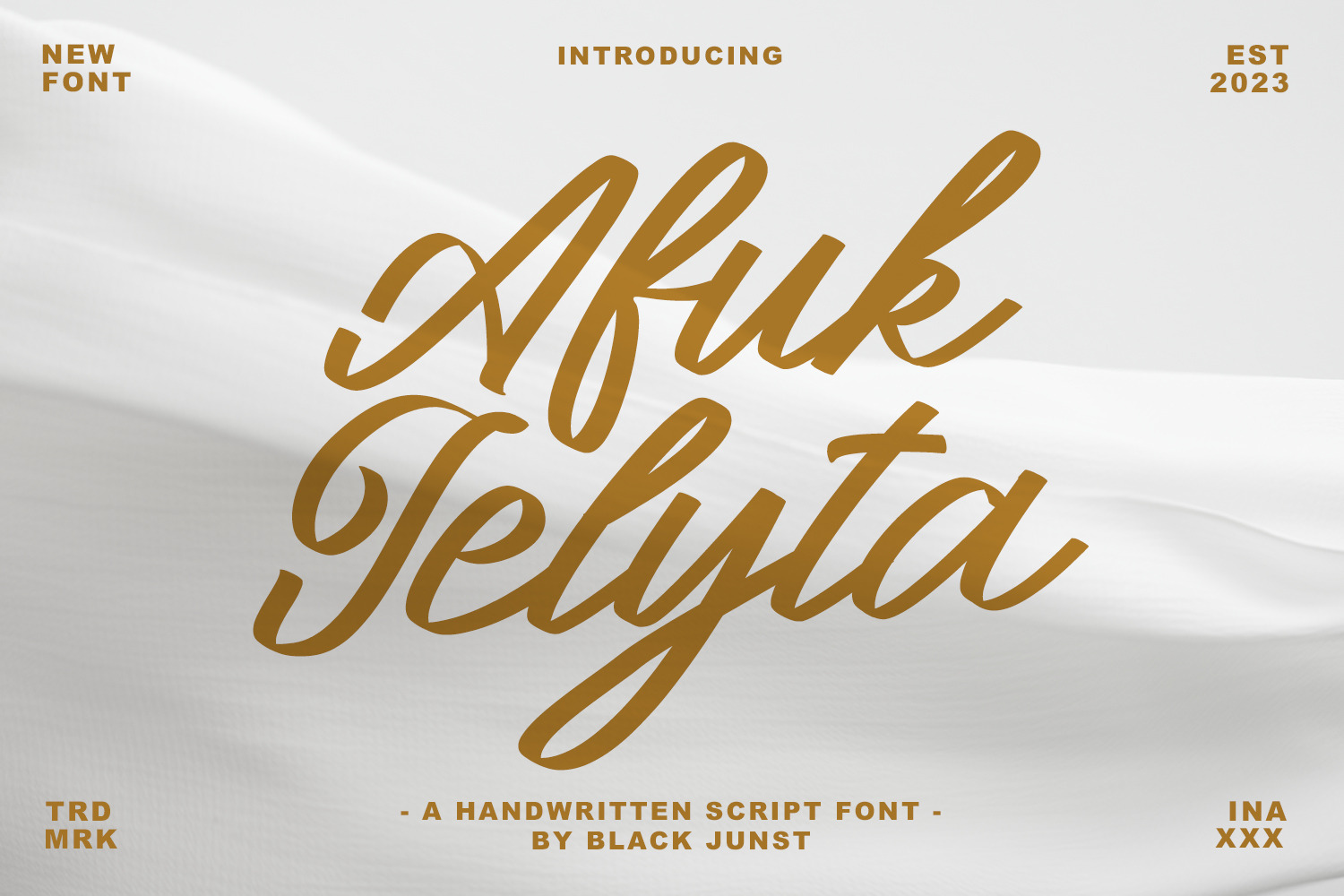
Afuk Jelyta - Script Font
Afuk Jelyta emergence with originality and modernity will make all your design needs more attractive.This original handwritten curve makes the font seductive to the wearer.
Afuk Jelytahas common characters in it, such as uppercase, lowercase, numbers, and punctuation. You need to know.
Afuk Jelyta can be a versatile font, it can be made into logos, social media campaign designs, to be used as magazine covers, brochures, and even t-shirts.
Oh yeah, Afuk Jelyta also has an open feature that will add to your options for stringing words.